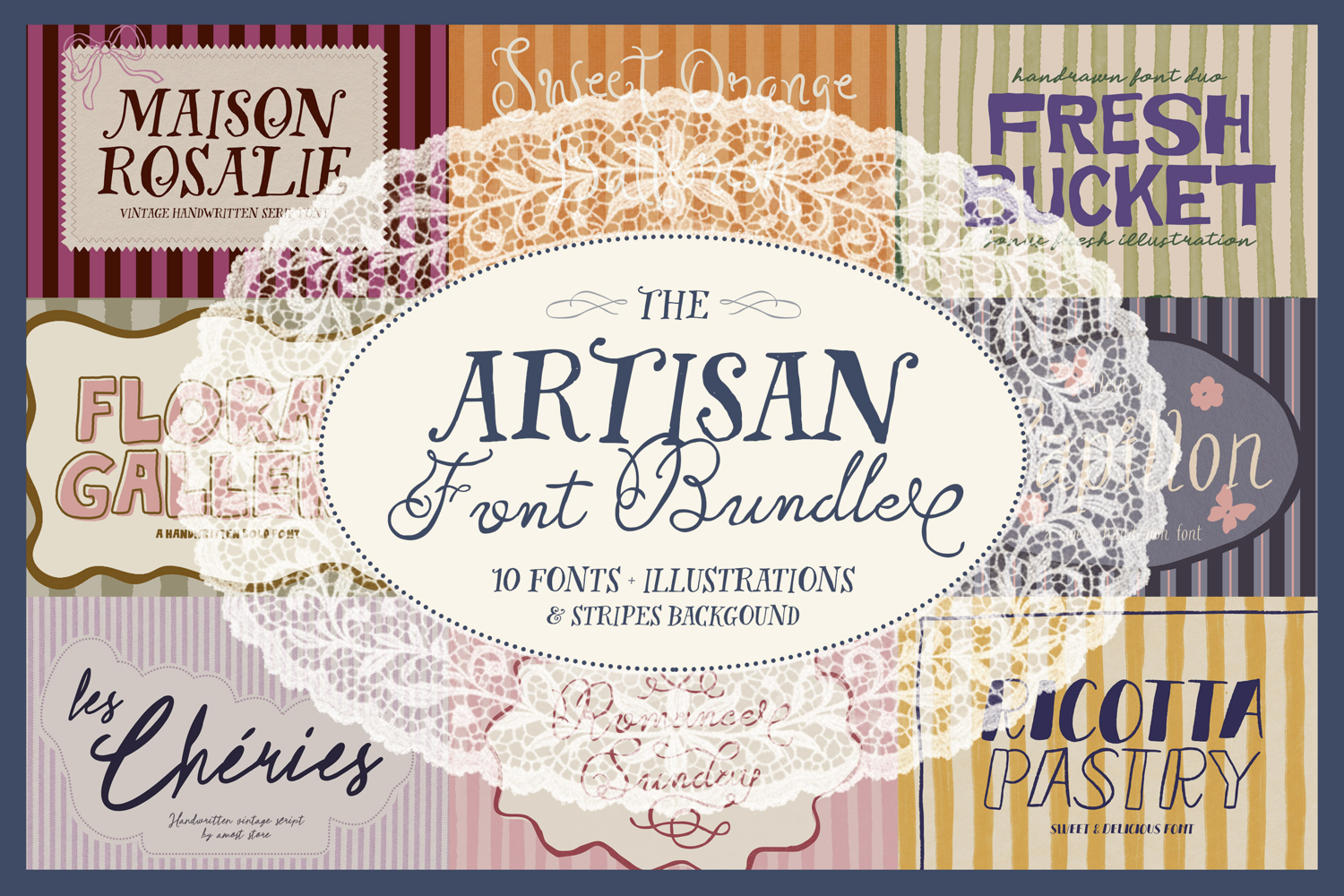
Artisan Font Bundle
ARTISAN FONT BUNDLE
Elevate your creative projects with the Artisan Font Bundle, a carefully curated collection of handcrafted vintage fonts inspired by artisan bakeries, French cafés, rustic markets, and timeless boutique branding. Combining elegant serif typefaces, flowing handwritten scripts, and charming display fonts, this bundle is perfect for logos, packaging, invitations, menus, social media, labels, and creative branding in Canva, Procreate, Adobe Illustrator, Photoshop, Cricut, and more.
To make your designs even more beautiful, this bundle also includes a collection of Romance Clip Art & Decorative Borders, Hand-Drawn Fruits Illustrations, and Vintage Stripes Backgrounds. These bonus assets are designed to complement the fonts perfectly, allowing you to create cohesive, romantic, and artisan-inspired designs with ease.
This bundle contains 10 unique premium fonts along with exclusive bonus design elements. The elegant vintage aesthetic, handcrafted details, and French-inspired charm will give your projects a distinctive, warm, and sophisticated look that stands out across both print and digital media.